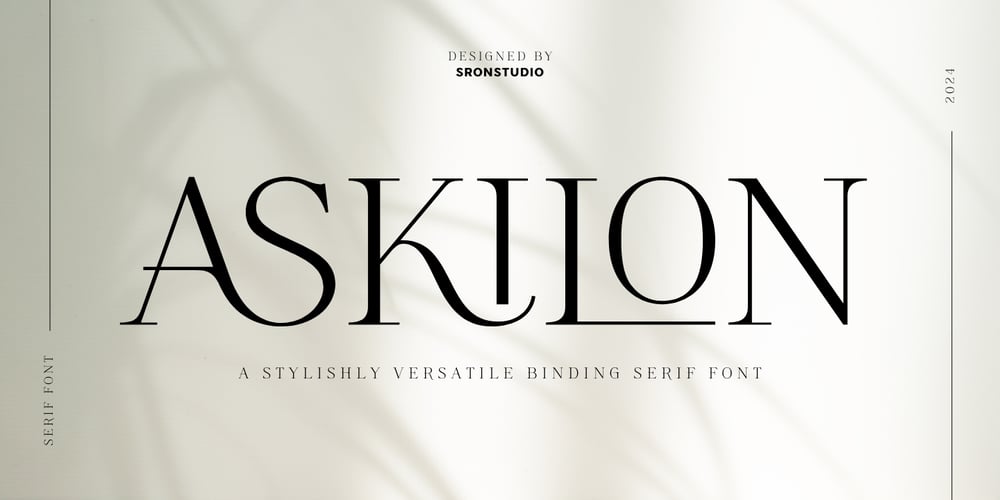
Askilon Font Family was designed by Muhamad Yusron Billah and published by Sronstudio. Askilon contains 1 styles and family package options. Askilon is a beautiful serif font that exudes elegance and sophistication. With its graceful curves and refined details, this font is perfect for luxury branding, editorial design, and high-end packaging. Askilon brings a timeless charm to any project, making it ideal for those looking to make a bold yet classic impressionIncluded:- Ligatures- Numeral & Punctuation- PUA Encoded- Multilingual support- Simple Installation- Work both on Mac and WindowsThank you very much 🙂